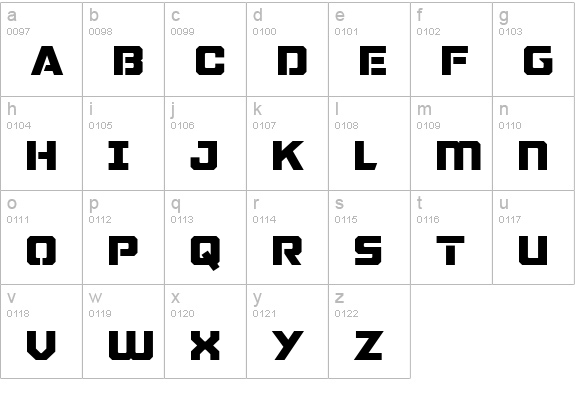
GALACTIC VANGUARDIAN NCV Font Details
Introducing the awe-inspiring GALACTIC VANGUARDIAN NCV font, a powerful typeface that embodies the essence of interstellar adventures and futuristic aesthetics. This font is specifically designed to elevate your creative projects to new cosmic heights, making it perfect for sci-fi books, movie titles, video games, posters, and more. With its bold and dynamic letterforms, GALACTIC VANGUARDIAN NCV demands attention and effortlessly captures the essence of otherworldly realms. Every character is meticulously crafted to resemble the futuristic insignias of a Galactic Guardian, radiating a sense of authority and cosmic grandeur. But what sets GALACTIC VANGUARDIAN NCV apart is not just its visually striking appeal, but also the fact that it is freely available to download at FontsMarket.com. Yes, you read that correctly! This extraordinary font can be yours without any cost, allowing you to unlock endless creative possibilities without breaking the bank. Whether you are a professional designer seeking a captivating typeface for your next project, or an aspiring artist searching for a font that will make your work stand out, GALACTIC VANGUARDIAN NCV is the perfect choice. Its versatility and unique design elements ensure that your creations will leave an indelible mark on the intergalactic design landscape. So, don't miss out on this stellar opportunity! Download GALACTIC VANGUARDIAN NCV for free at FontsMarket.com and embark on a cosmic journey of creativity and imagination. Let the font be your guiding star as you explore new frontiers and bring your visions to life with an interstellar touch of brilliance.